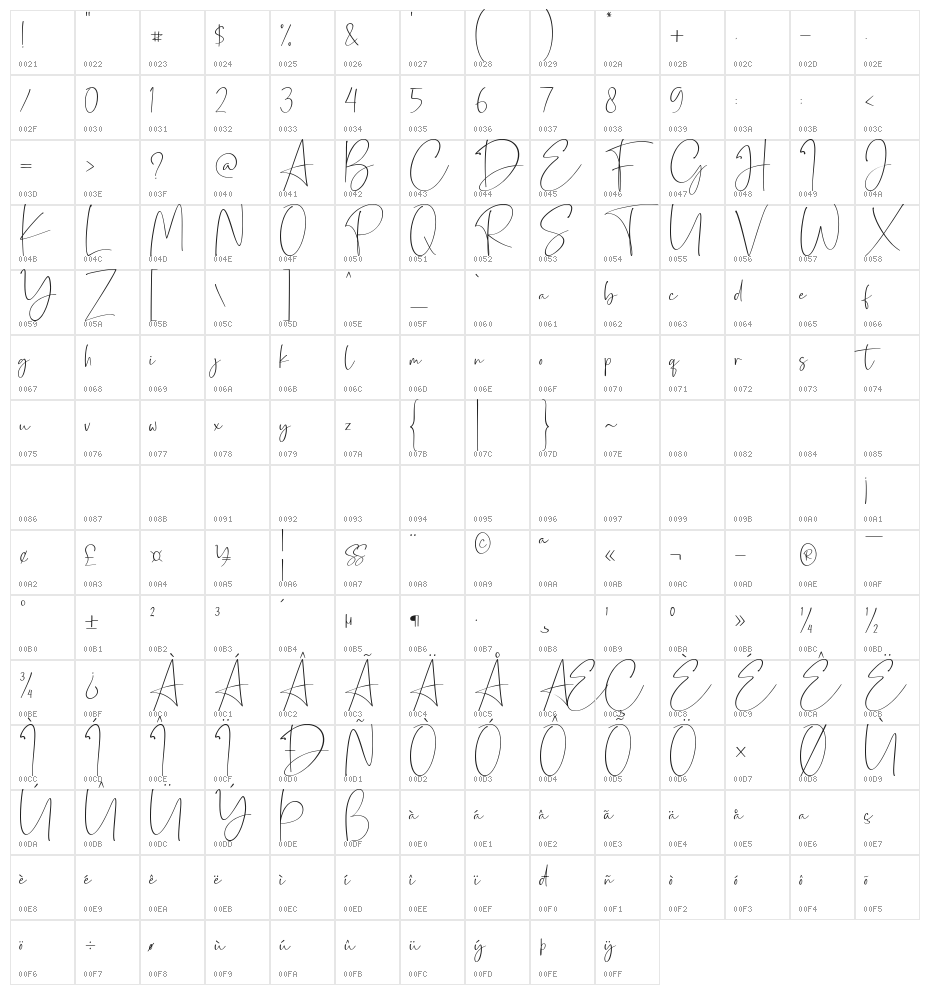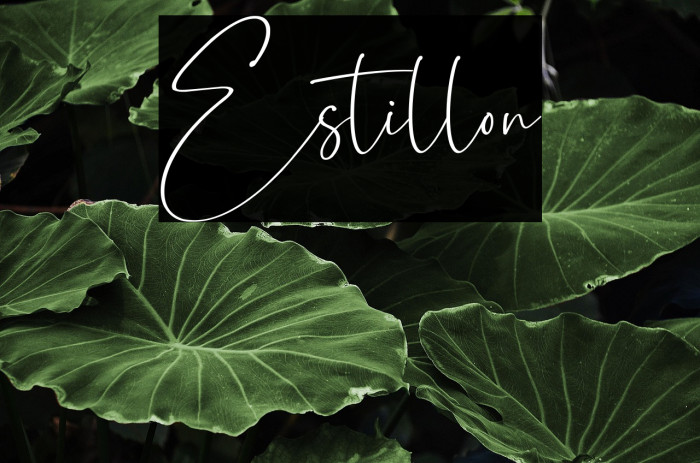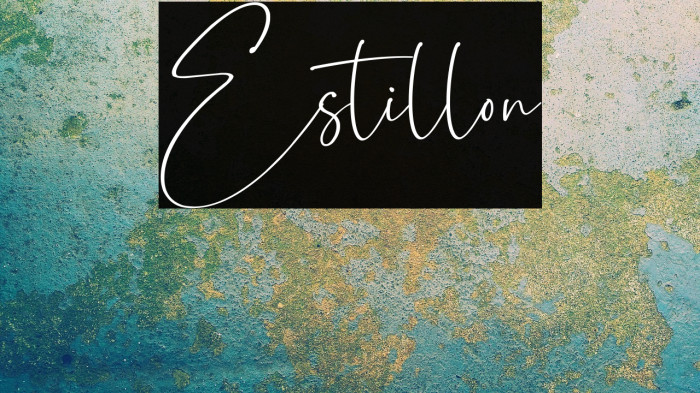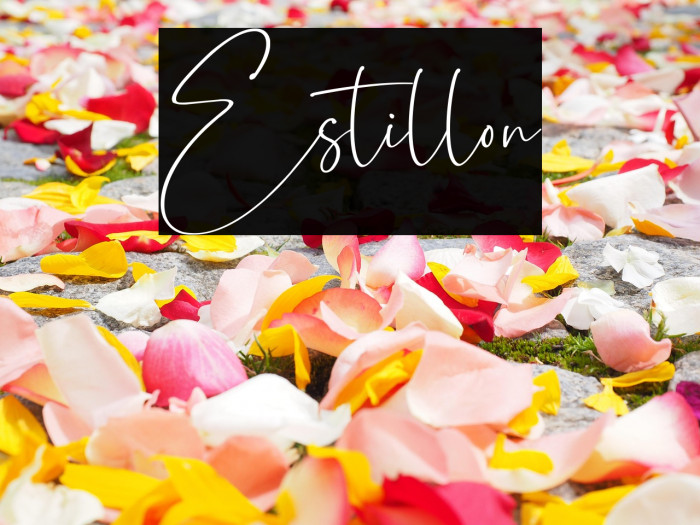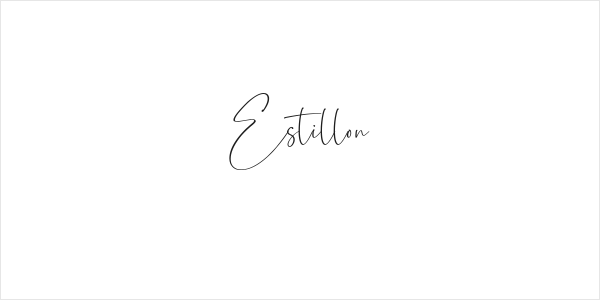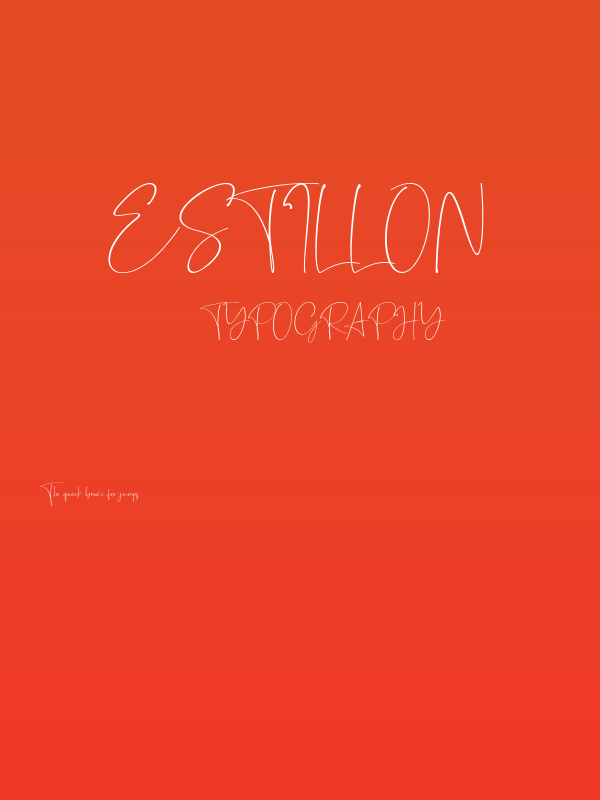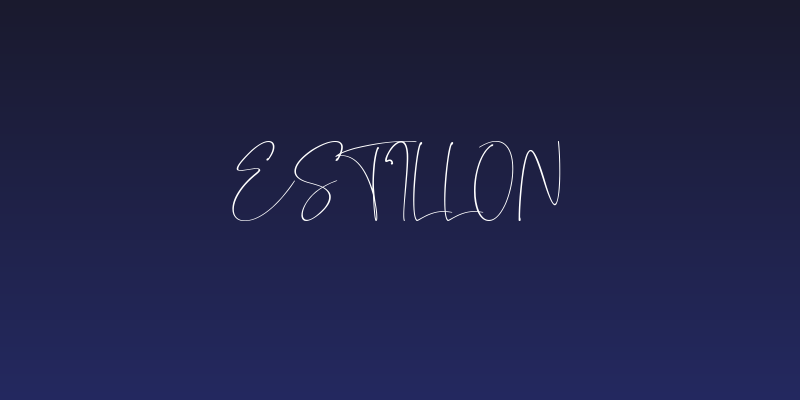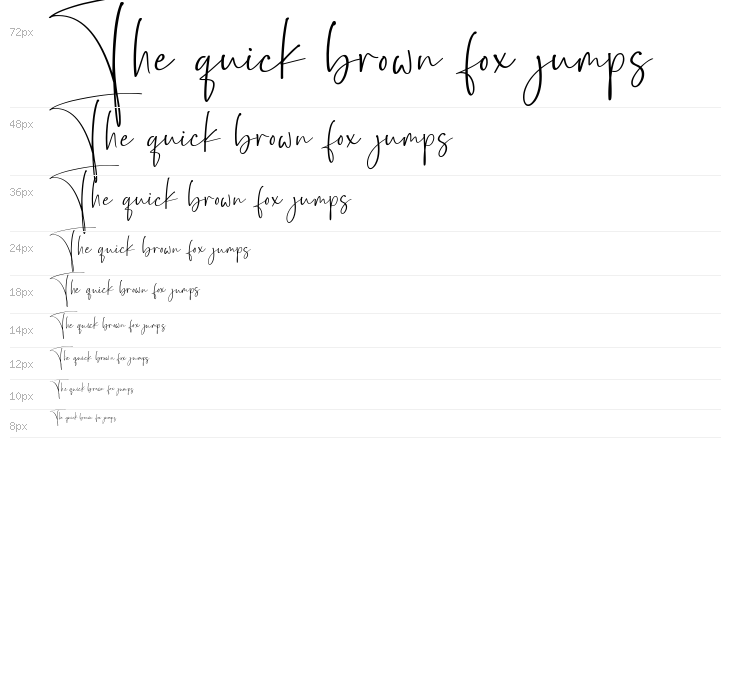
Estillon Font
Estillon Description
This font features a flowing, handwritten style with a casual and elegant appearance. The uppercase letters are tall and slender, with a slight slant that adds a dynamic feel. The lowercase letters are more rounded and connected, enhancing the script-like quality. Numbers and special characters maintain the same fluidity, ensuring consistency across all elements. The strokes are thin, with a low contrast between thick and thin lines, giving it a delicate and airy look. This font is perfect for projects that require a personal touch, such as invitations, greeting cards, or branding materials.
| Overall Style | Casual, Elegant |
| Use Case | Headlines, Logos, Invitations |
| Proposed Projects | Ideal for invitations, greeting cards, branding, and personal projects. |